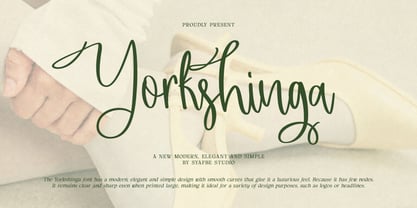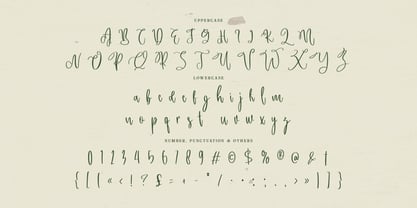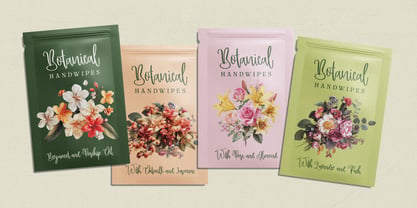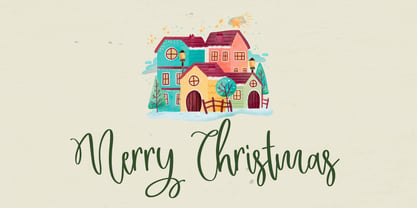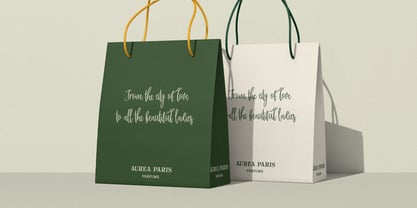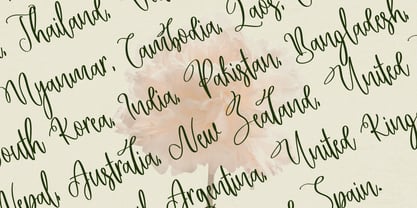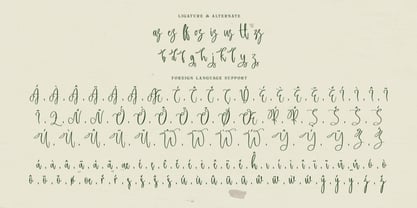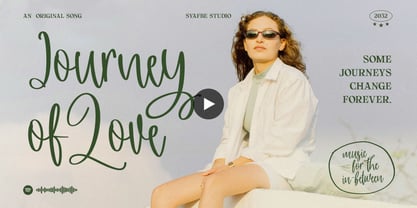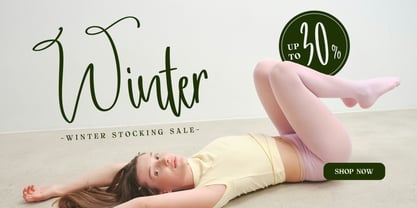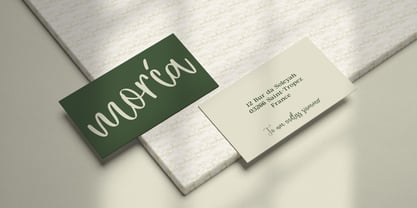
Yorkshinga
by Syafbe
The Yorkshinga Font Family was designed by Syafwan Mus and published by Syafbe. Yorkshinga contains 1 styles. More about this family
The Yorkshinga font
Embodying a philosophy of elegance, softness, and confidence through its free-flowing script letterforms, reminiscent of artistic handwriting. The long, smooth, and expressive curves create a luxurious yet simple impression, making this font ideal for visual identities that seek to appear elegant, modern, feminine, and classy. It is ideal for design needs such as logos, fashion brands, beauty brands, wedding invitations, music covers, promotional posters, headlines, product packaging, and even social media content that require a personal, exclusive, and attention-grabbing touch.